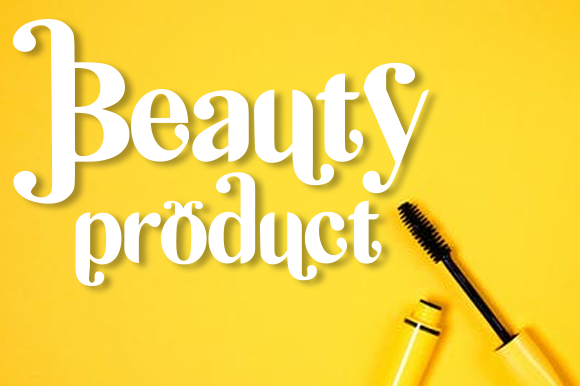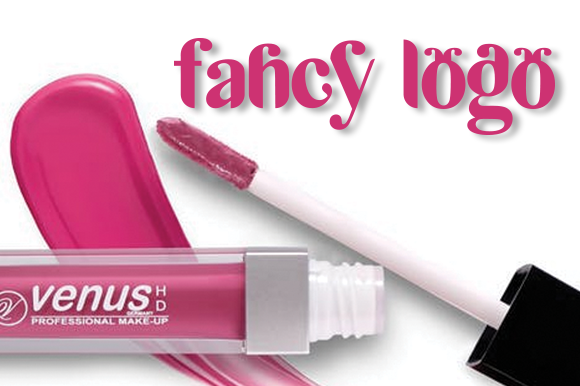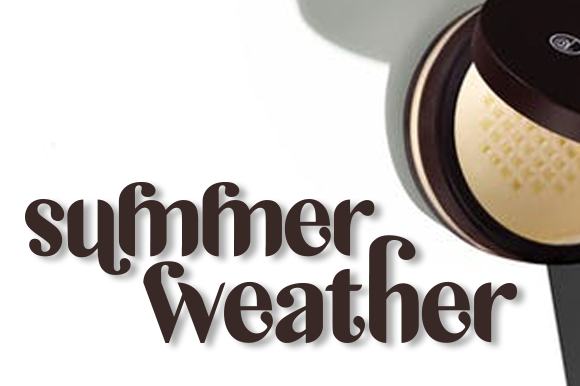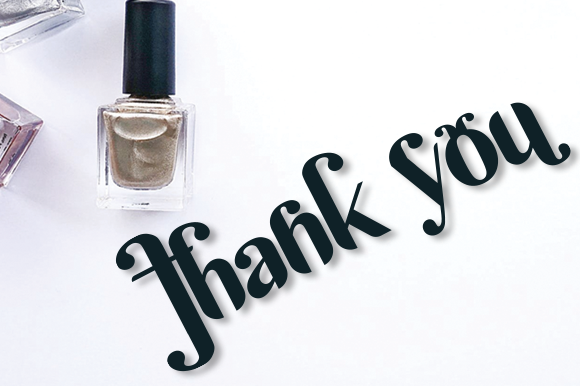
The Birth of a Design Revolution: Introducing Blood Ham Font
Have you ever stared at a blank page, feeling the weight of a creative deadline looming over you? That’s when the magic happens – the moment when inspiration strikes and you’re on the verge of unleashing your inner designer. For those who’ve been there, you know the rush of excitement when the perfect font appears, elevating your design to new heights. That’s exactly what the Blood Ham Font promises to deliver.
Blood Ham is an original display font, carefully crafted to elevate a wide range of design projects. Whether you’re working on branding, headings, wedding designs, invitations, signatures, logos, labels, or anything in between, this font is sure to take your designs to the next level. With its unique character and versatility, Blood Ham Font is an invaluable addition to any designer’s toolkit.
Blood Ham Font Key Features
- Font Family: Blood Ham Font is a sans-serif typeface designed for use in various digital and print applications.
- Character Set: Includes a wide range of characters, including uppercase and lowercase letters, numerals, punctuation marks, and special characters.
- Unique Characteristics: Blood Ham Font features a bold and modern design with a unique blend of geometric and organic elements, making it ideal for use in bold headlines, titles, and other attention-grabbing applications.
Blood Ham Font Review
Overall, I was quite intrigued by the “Blood Ham Font” when I first laid eyes on it. Its unique blend of horror-inspired aesthetics and quirky charm has the potential to elevate any project that needs a bold, attention-grabbing font.
- ✨ The font’s bold and edgy feel is perfect for horror-themed projects or anything that needs a touch of darkness.
- ✨ The font’s design is quite well-crafted, with smooth lines and a cohesive look that’s consistent throughout.
- ✨ I appreciate how the font has a clear, legible quality, making it suitable for body text as well as headings.
- ⚠️ The font may be too bold for certain projects, potentially overwhelming the reader or diluting the message.
- ⚠️ The font’s limited character set and lack of language support might be a hindrance for projects that require extensive text.
Overall, I’d say the “Blood Ham Font” is a solid choice for specific projects, but its limitations should be carefully considered before deciding to use it. With some restraint and a clear understanding of its strengths and weaknesses, this font can be a valuable addition to your design toolkit.
The Blood Ham Font is ideal for creating dramatic and attention-grabbing designs, such as:
- Movie title sequences
- Comic book covers
- Horror-themed posters
Tips for Getting the Most Out of it
To get the most out of the Blood Ham Font, try the following:
- Pair it with bold, dark colors to enhance its dramatic effect.
- Experiment with different font sizes and styles to create a sense of hierarchy.
- Use it in conjunction with other bold, distressed fonts to create a unique visual identity.
Alternatives to Blood Ham Font
Playfair Display is a luxurious serif font ideal for high-end branding, advertising, and editorial content. Its elegant and refined design makes it perfect for creating a sense of sophistication and luxury. When to use: luxury branding, high-end advertising, and editorial content. Comparison to Blood Ham Font: While Blood Ham Font has a unique, handwritten feel, Playfair Display is more elegant and refined, making it suitable for more formal applications.
Pacifico is a beautiful, cursive font perfect for creating a sense of relaxation and calmness. Its smooth, flowing design makes it ideal for use in branding, advertising, and editorial content where a more laid-back tone is desired. When to use: branding, advertising, and editorial content that requires a relaxed tone. Comparison to Blood Ham Font: Pacifico has a more fluid, cursive design compared to Blood Ham Font, making it suitable for applications where a more casual tone is desired.